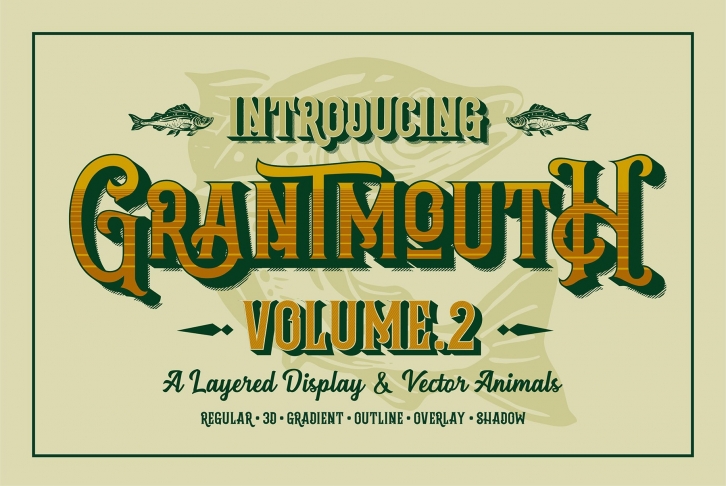
Grantmouth Vol.2 Extras is a great font that was designed by graptail. Imagine the amount of combinations you can create using this font! The archive is 21.10 MB and it was released on May 6, 2019. Grantmouth Vol.2 Extras looks beautiful on wedding invitations, greeting cards, logos, posters, labels, t-shirt designs, logos, business cards and is perfect for use in ink or watercolor works, fashion, magazines, packaging and food menus, children's books and more!